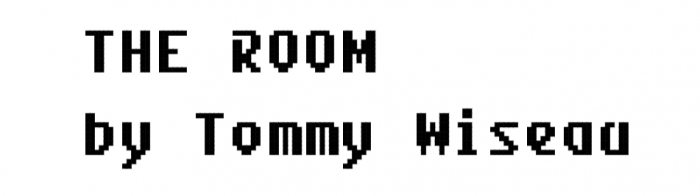
@dtsljs - Nice design on this pixel font.  With enough variations to make it stand out, it's definitely not your typical DOS-style font! :^)
inspired by the Revue font?